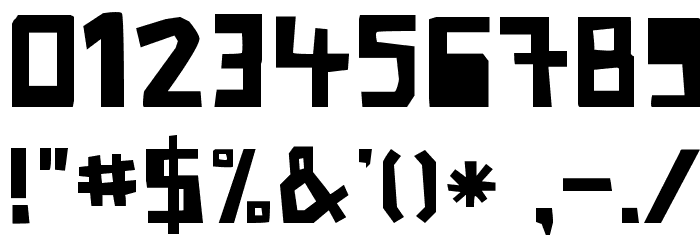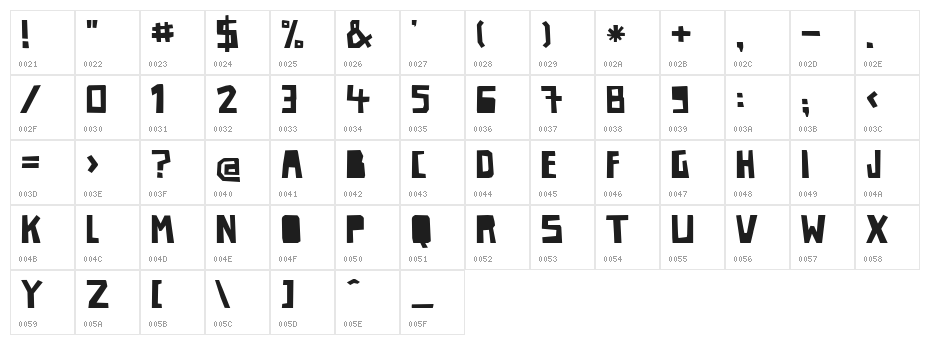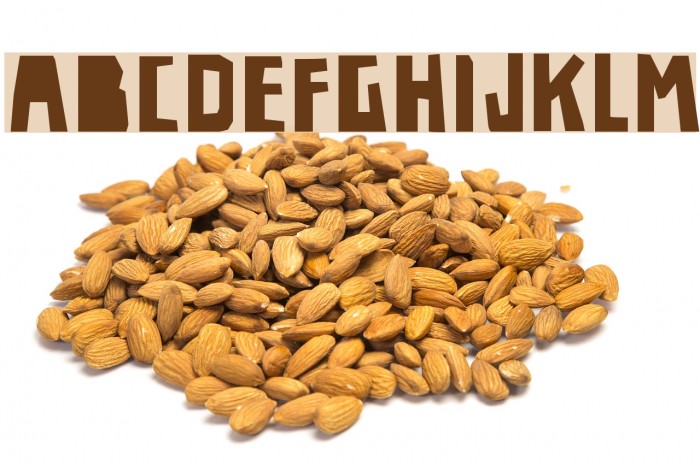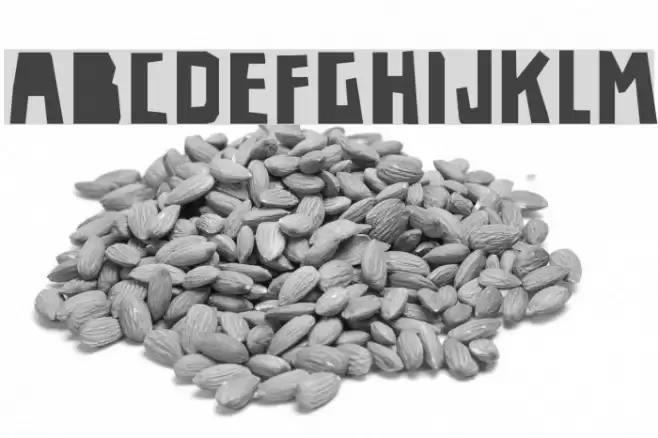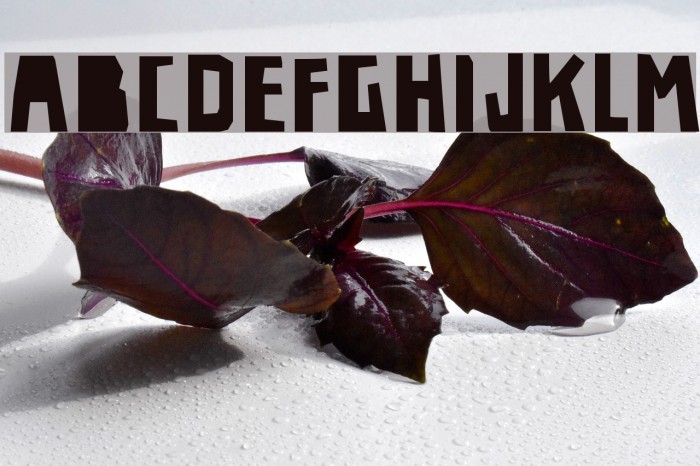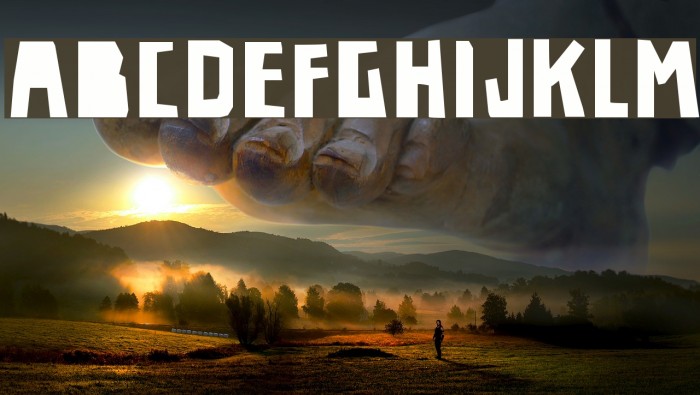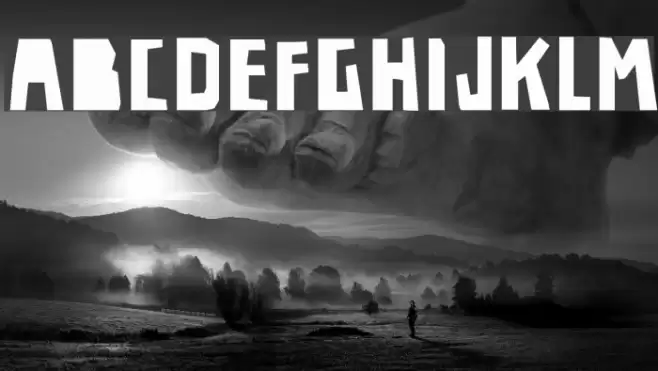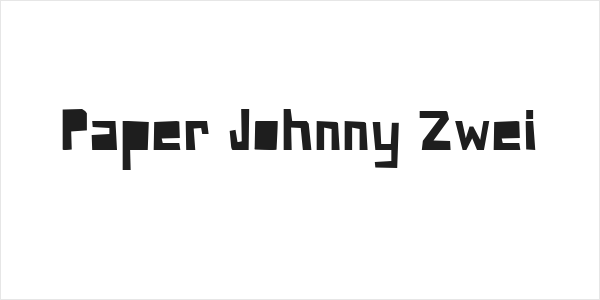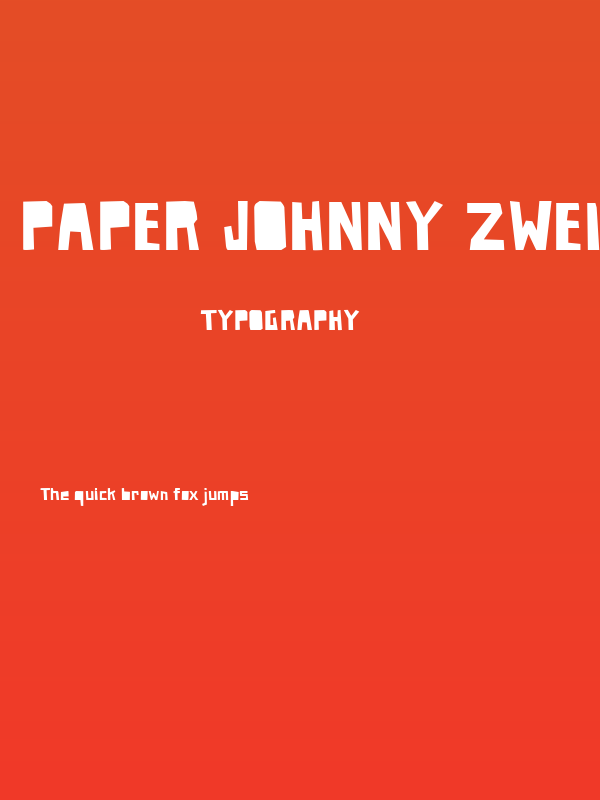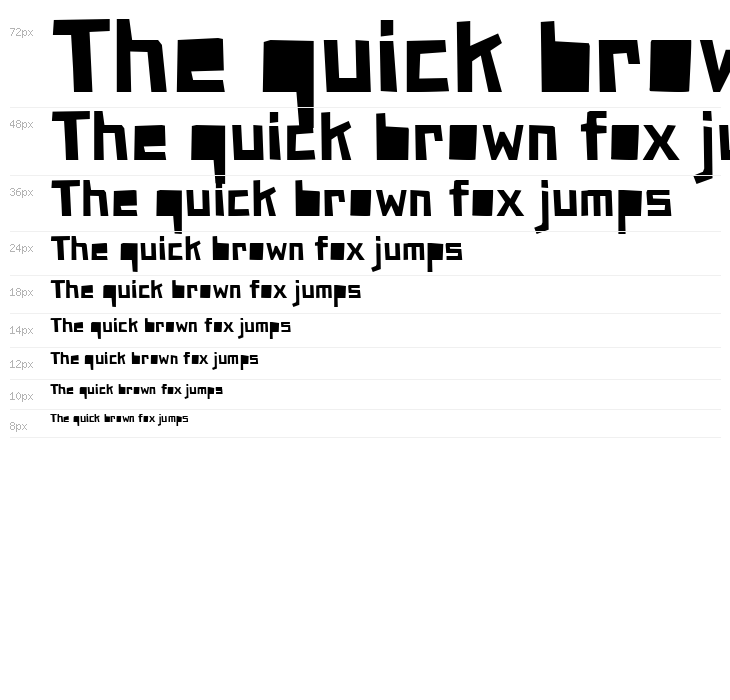
Paper Johnny Zwei Font
Paper Johnny Zwei Description
This font features a bold and geometric design with a distinctively angular and blocky appearance. The characters are constructed with sharp edges and varying widths, creating a dynamic and eye-catching style. The uppercase letters are particularly striking, with a strong presence that commands attention. The lowercase letters maintain the same geometric theme, offering a cohesive look across the typeface. Numbers and special characters are designed to match the boldness and angularity of the alphabet, making this font suitable for impactful and creative designs.